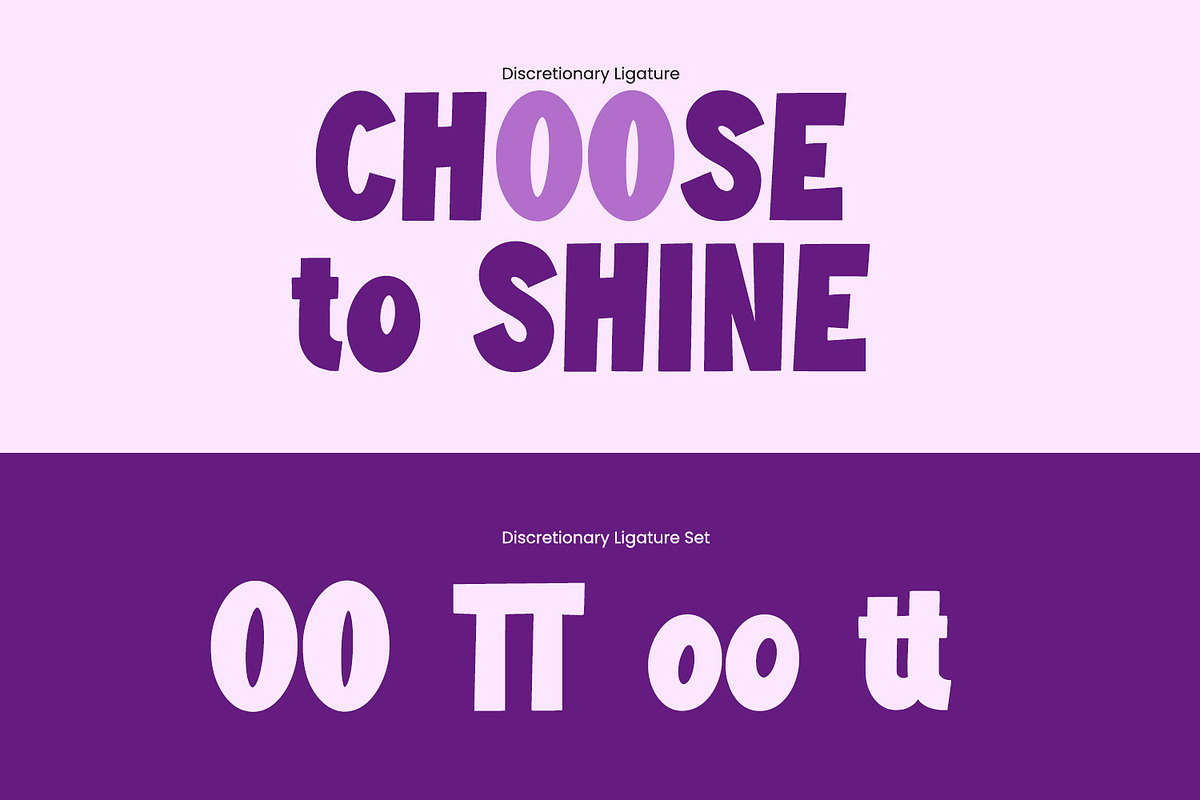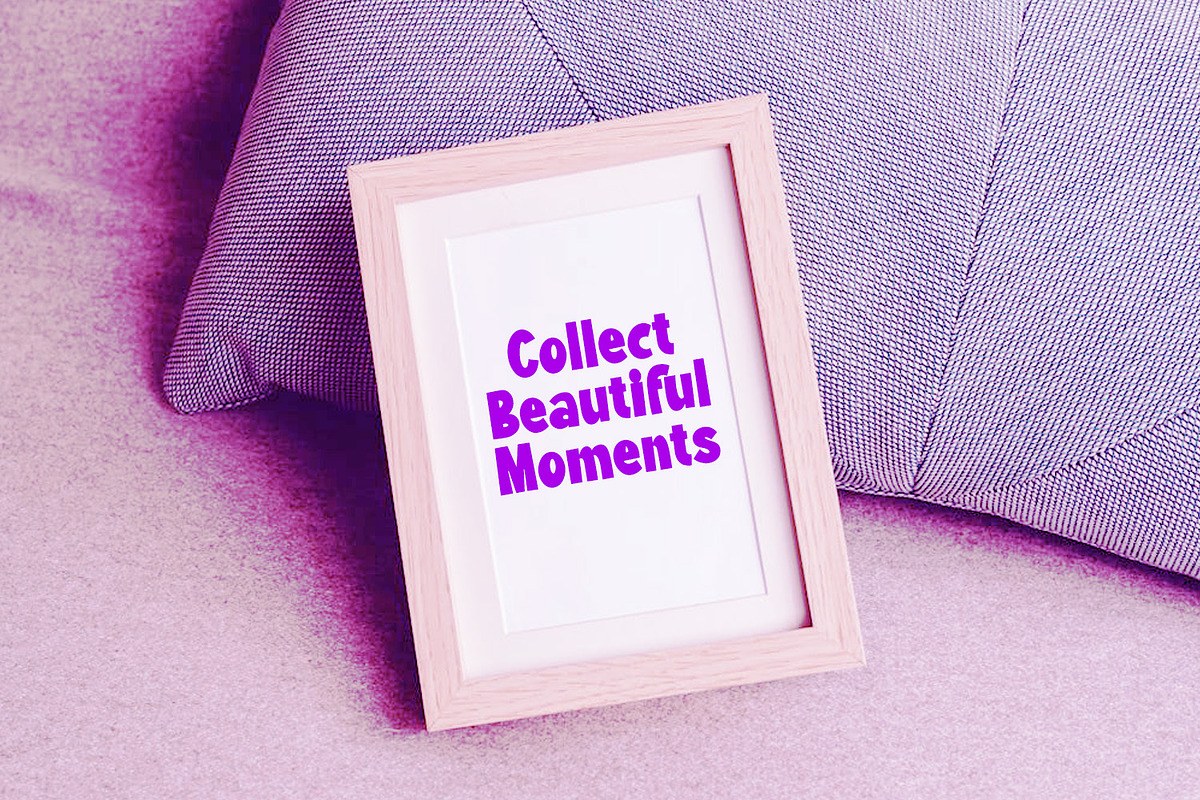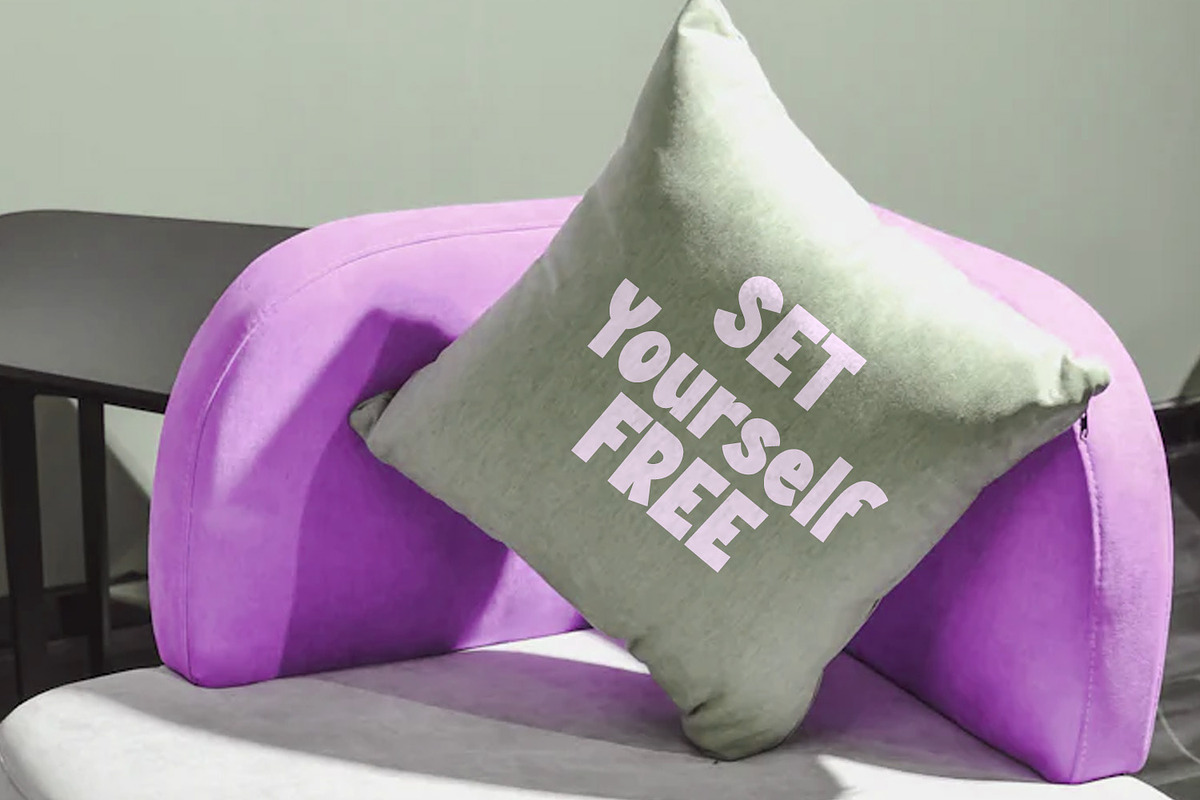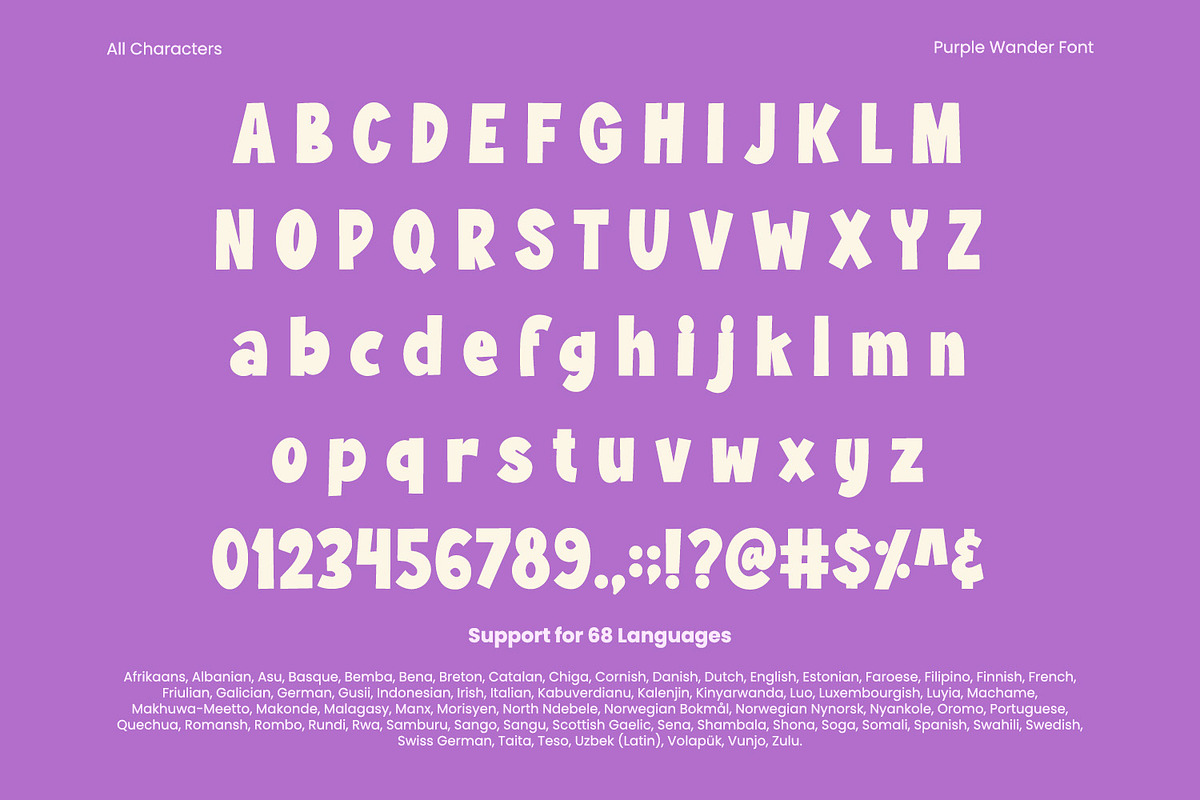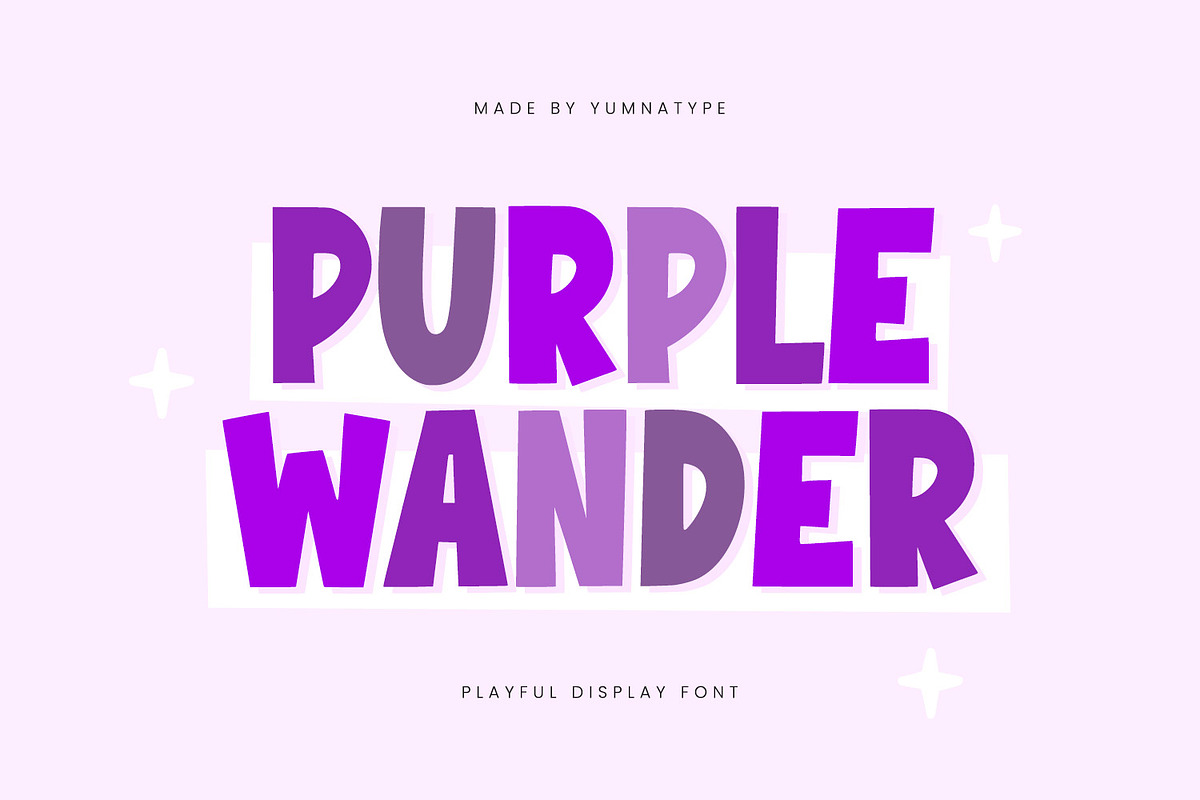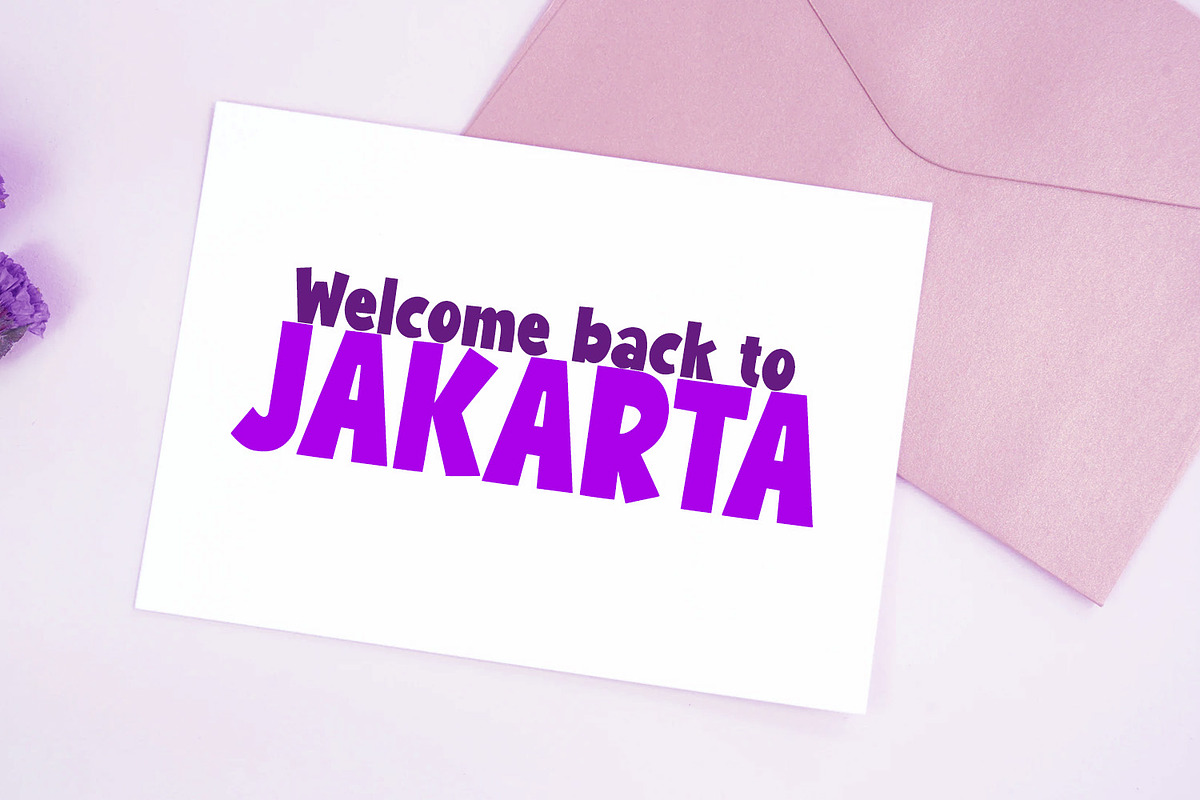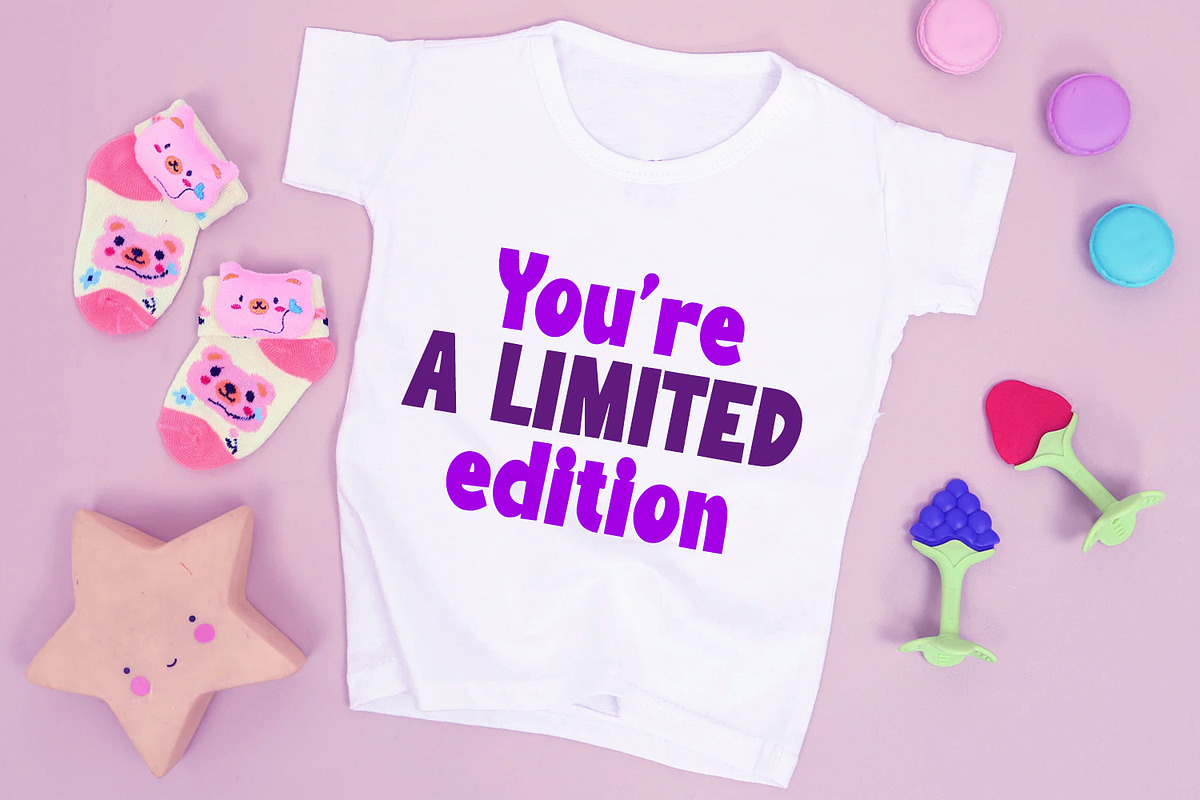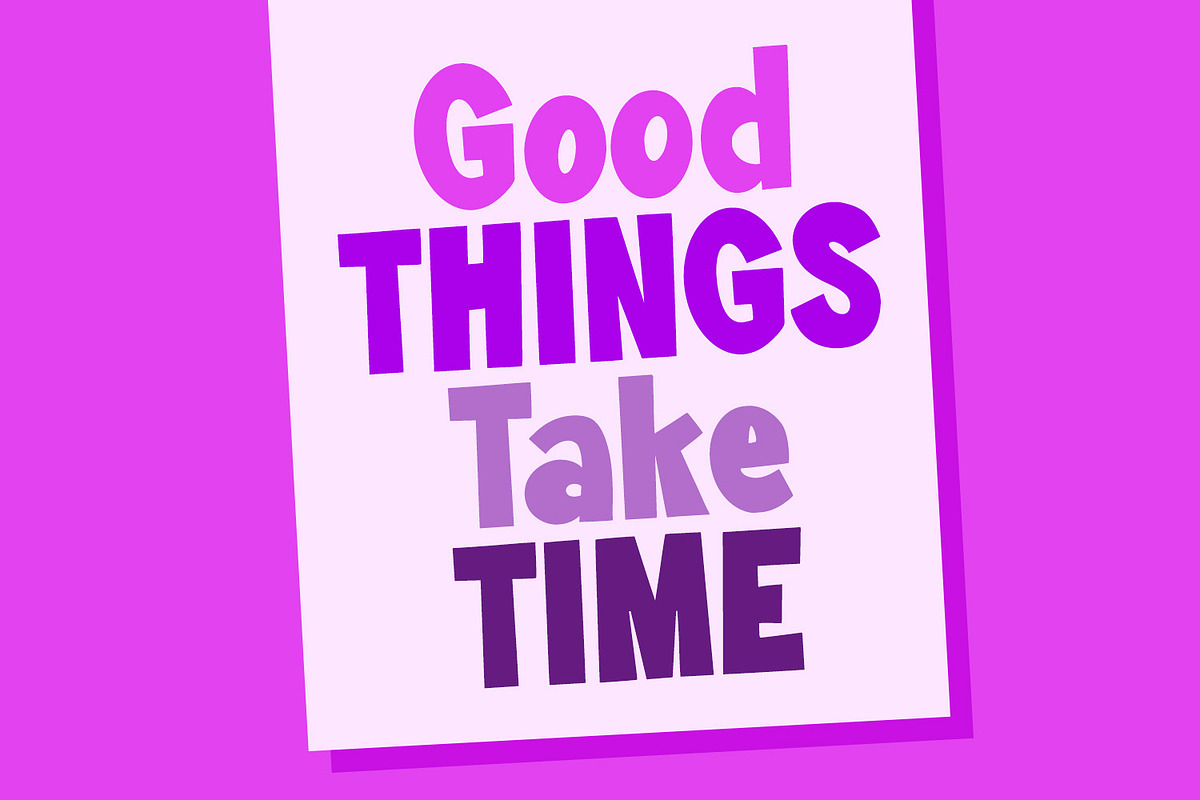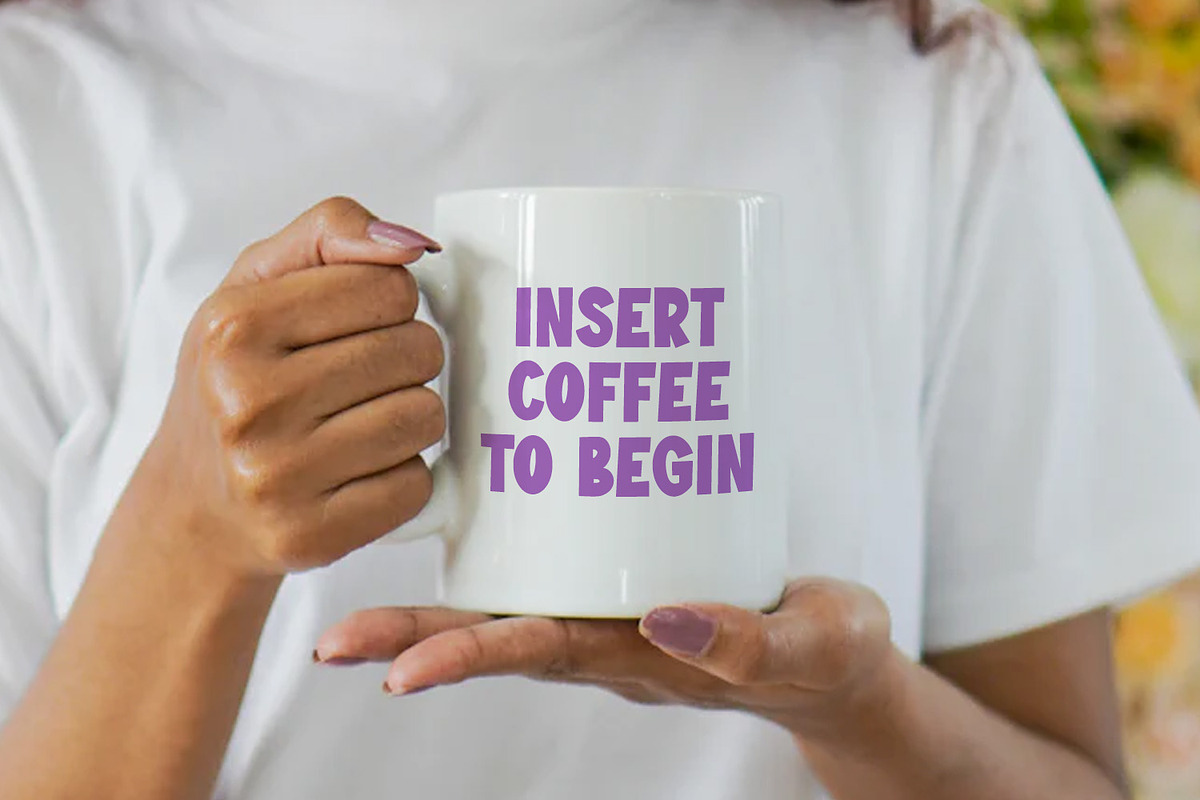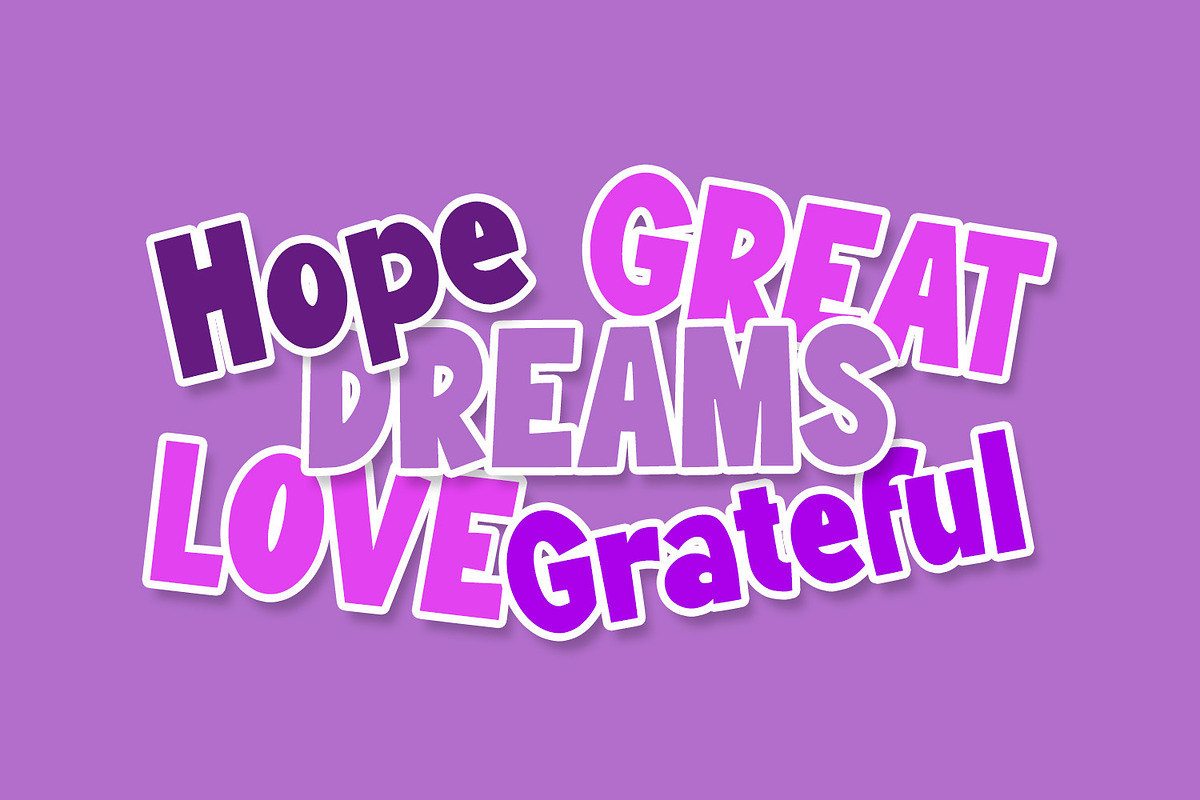
Purple Wander
Purple Wander is a captivating display font that blends bold weight with a playful style. Each letter in Purple Wander is designed with a sense of fun, making the font perfect for designs that aim to be eye-catching and engaging. The bold weight of the font ensures a strong appearance, while its playful style infuses creativity and whimsy into your text.
What sets Purple Wander apart is its low contrast, which maintains a consistent stroke width throughout the letters. This design characteristic enhances its clean and approachable look, making it ideal for projects that seek to convey a sense of fun and excitement without overwhelming the viewer. In addition, enjoy the features here.
Purple Wander fits in headlines, logos, posters, flyers, branding materials, print media, editorial layouts, and many more designs. Find out more ways to use this font by taking a look at the font preview.